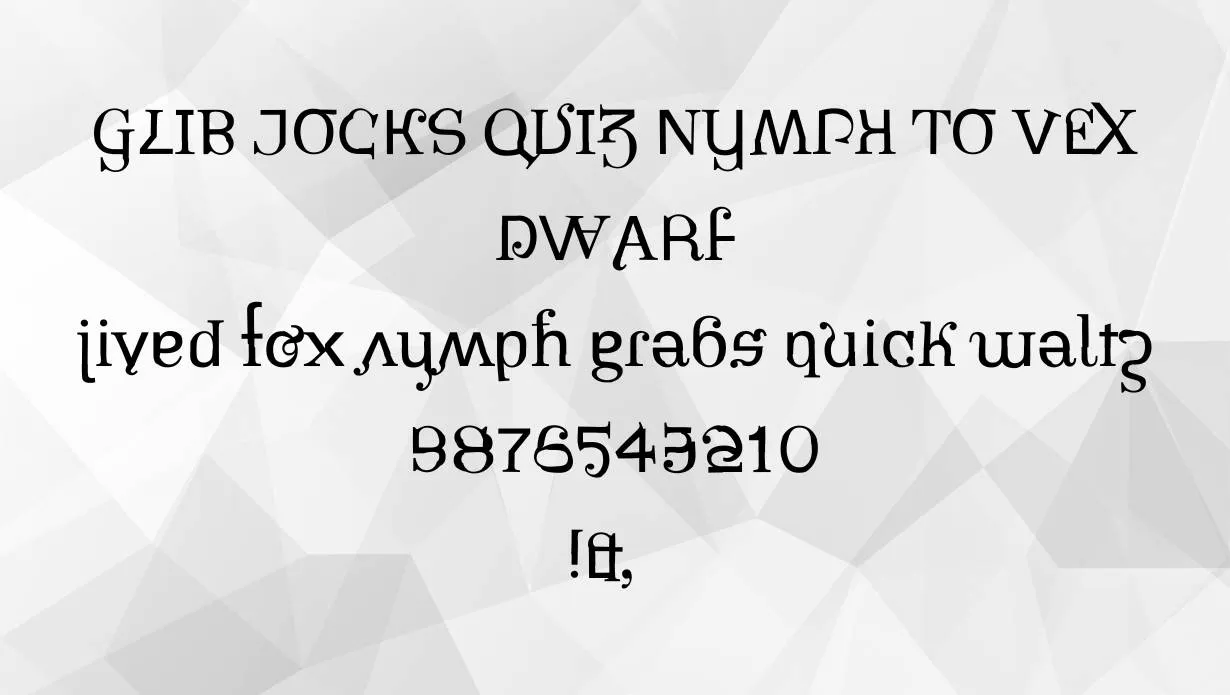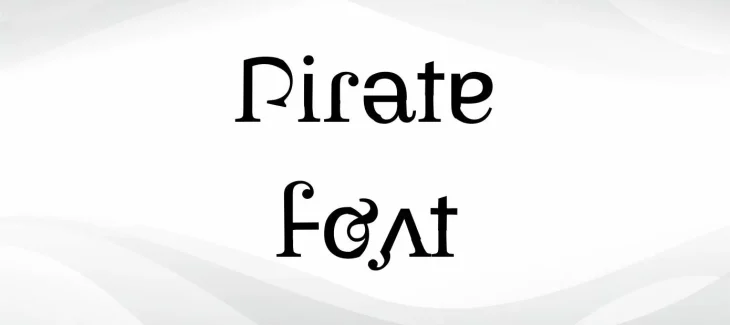
The Pirate Font is a famous typeface that was designed by David Occhino and is under the category of the fancy texture look. This outstanding typeface was released in November 2008 with a unique and contemporary texture look. This font is available in both OTF and TTF file formats.
You can combine this gorgeous typeface with the boingo font and make eye-catching projects. This font comes in various types of characters such as uppercase letters, numerals, digits, symbols, and punctuations.
The Pirate Font has a stylish and unique texture that can be utilized for various types of projects and methods. It is the perfect choice for making logos, posters, banners, social media posts, advertisements, and many other projects.
You may also utilize this font for stationary printings, T-shirt printings, tattoos, kids’ bags, and signage.
Pirate Font Family Appearance
What is the font style of pirates?
It is under the category of the fancy texture look and comes in various types of weights and styles such as bold, italic, and regular.
What type of font is Pirate Font?
This font was designed by David Occhino and is under the category of the fancy texture look. It was released in November 2008 with a unique and contemporary texture look.